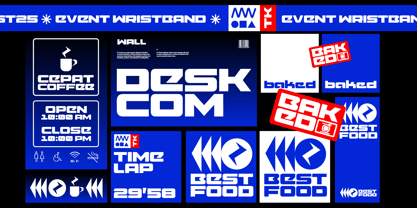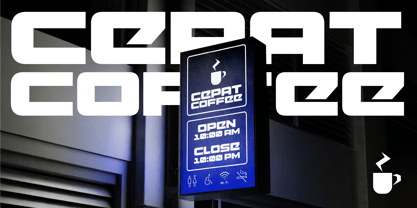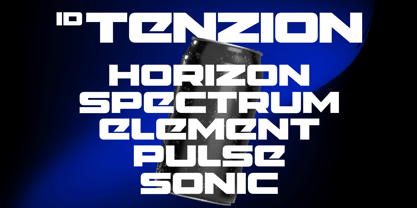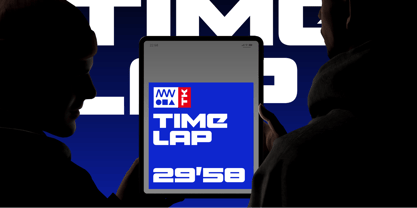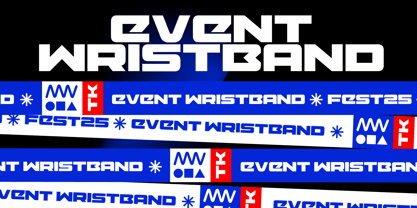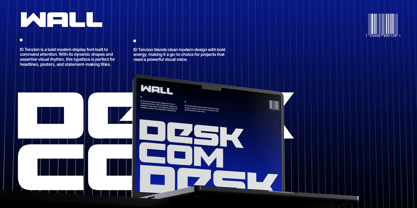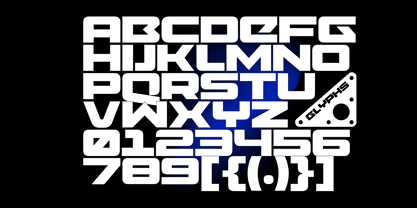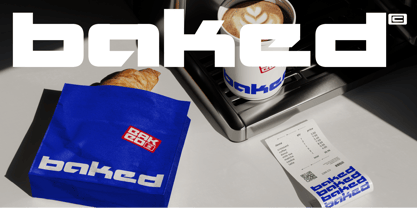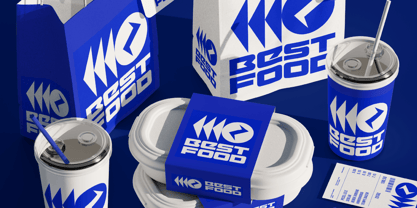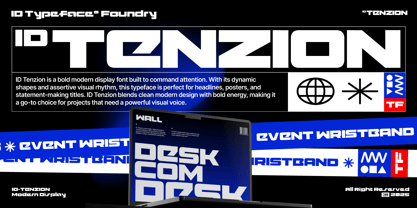
ID Tenzion
by ID Typeface
The ID Tenzion Font Family was designed by Khairil Anwar and published by ID Typeface. ID Tenzion contains 1 styles. More about this family
ID Tenzion is a bold modern display font built to command attention. With its dynamic shapes and assertive visual rhythm, this typeface is perfect for headlines, posters, and statement-making titles. ID Tenzion blends clean modern design with bold energy, making it a go-to choice for projects that need a powerful visual voice. ID Tenzion is a modern display typeface crafted with strong, confident forms. Its bold weight and sharp detailing make it an ideal choice for impactful headers, striking titles, and standout branding. Designed for maximum visual presence, ID Tenzion delivers clarity, attitude, and a contemporary edge in every layout.
Designers: Khairil Anwar
Foundry: ID Typeface